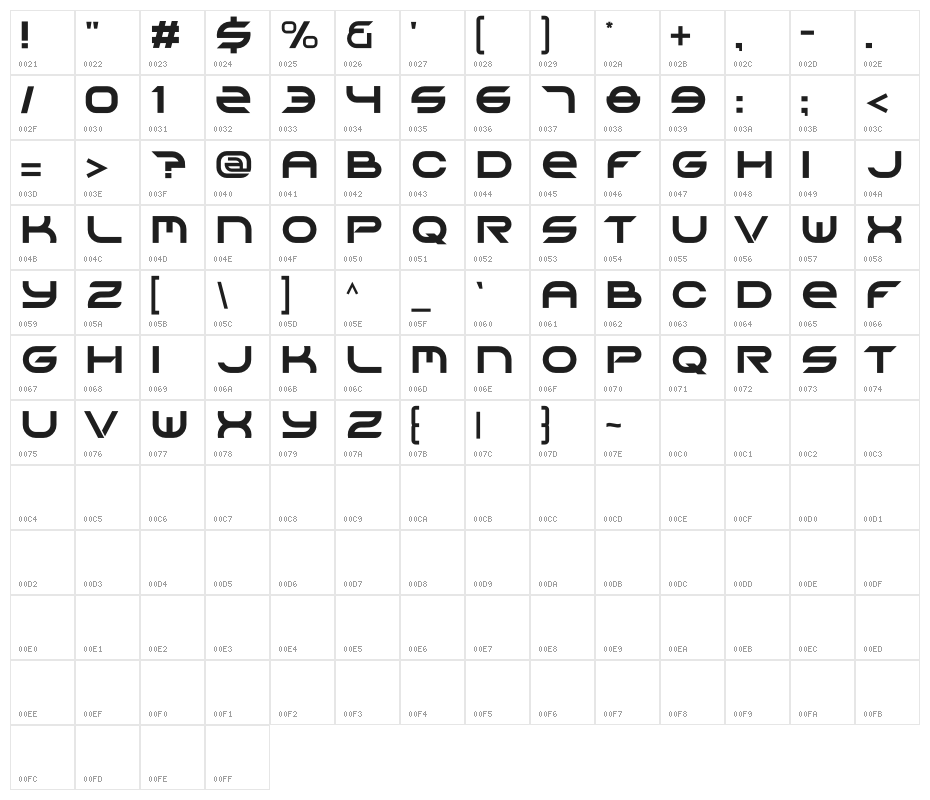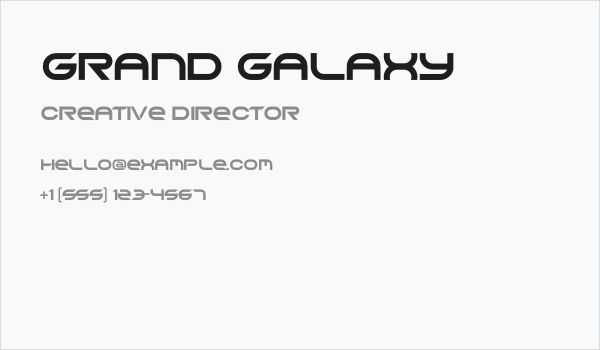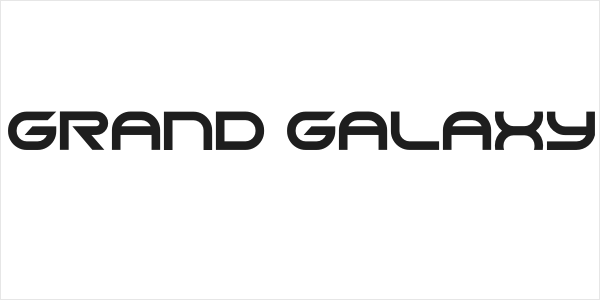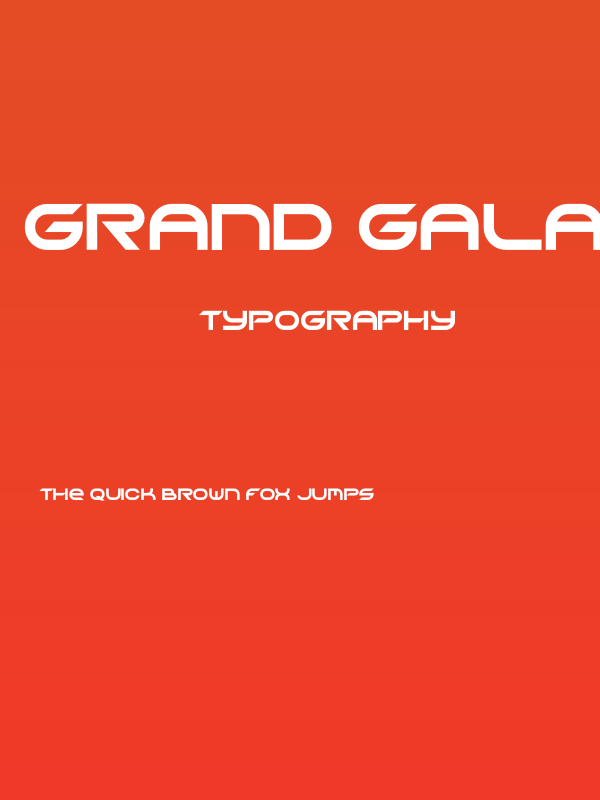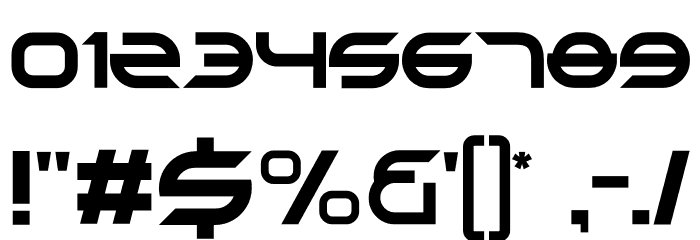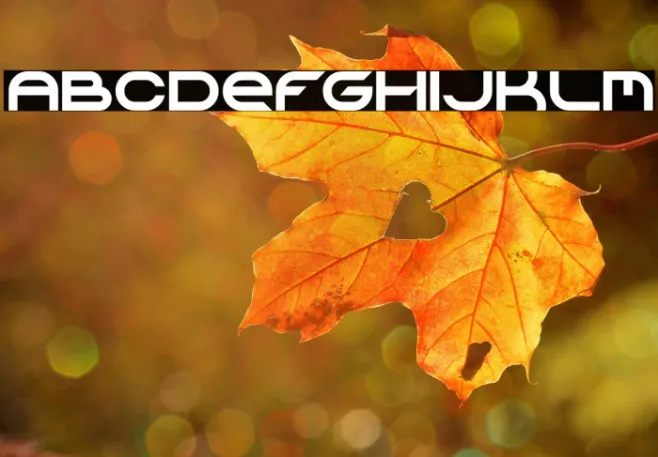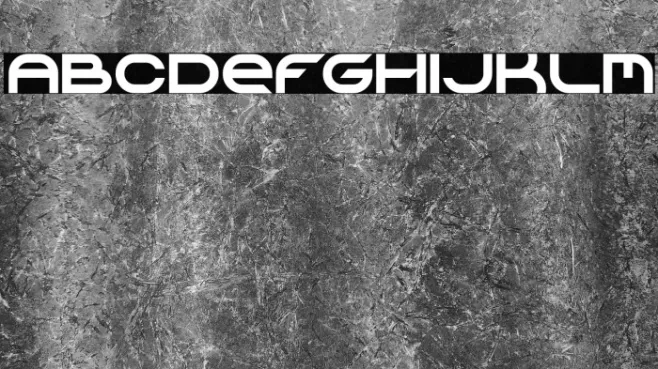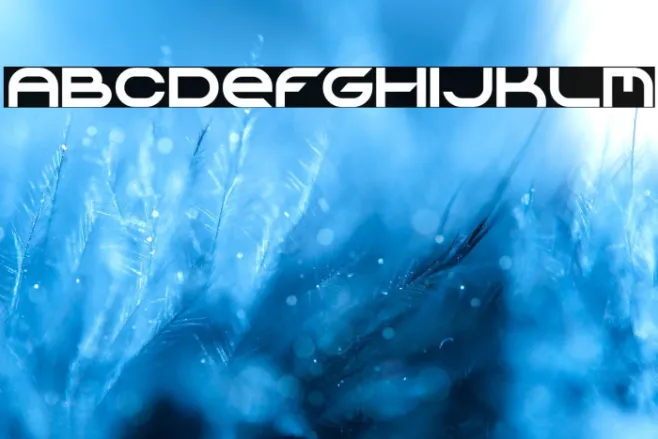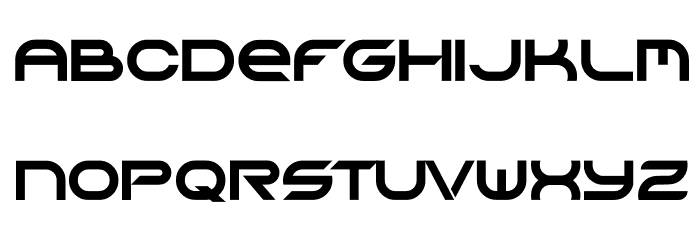
GRAND GALAXY Font
This font features a futuristic and geometric design, characterized by its bold and angular letterforms. The uppercase and lowercase letters share a consistent style, with sharp edges and a sleek appearance. The numbers and special characters maintain this aesthetic, providing a cohesive look across all glyphs. The font's modern appeal is enhanced by its uniform stroke width, giving it a clean and polished finish. Its distinct style makes it suitable for projects that require a contemporary and tech-inspired look.
| Proposed Projects | Ideal for sci-fi themed designs, technology branding, video game titles, and modern advertising. |